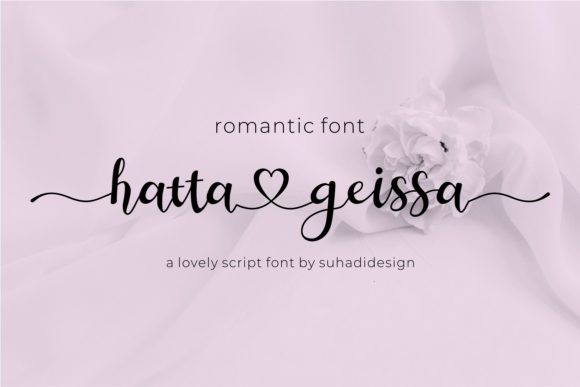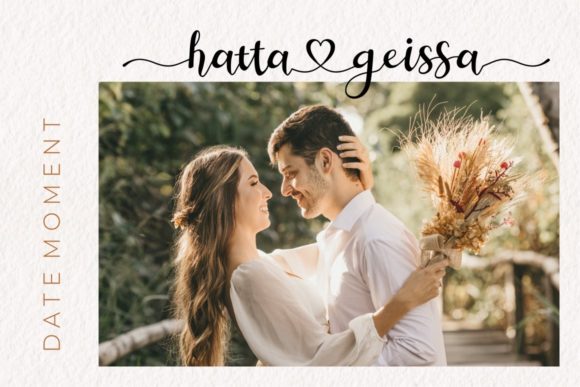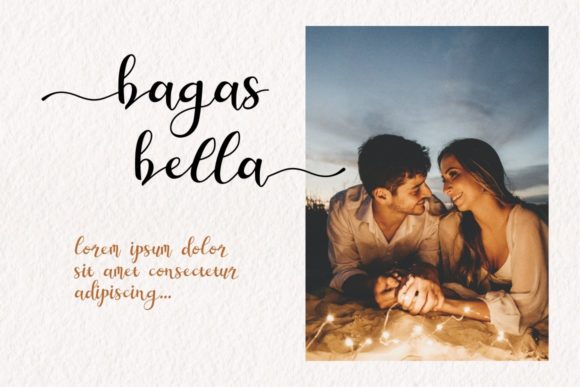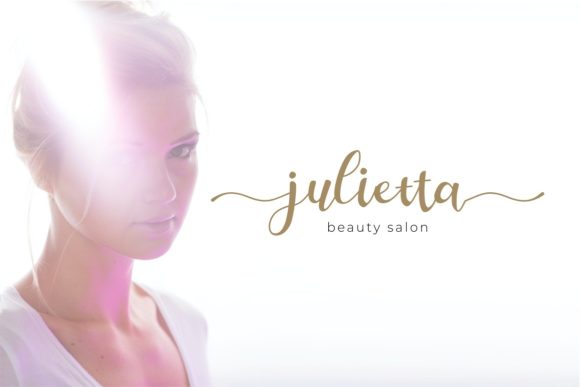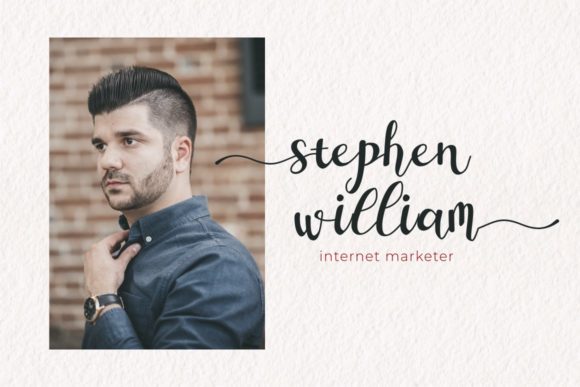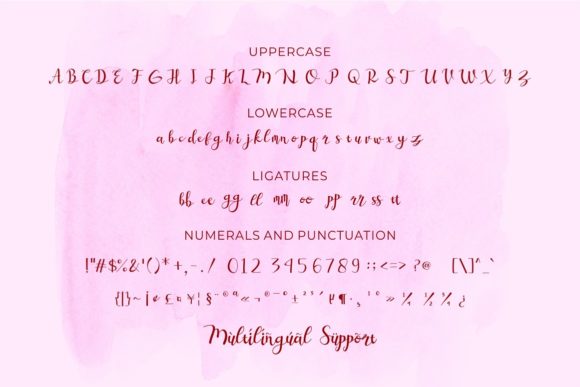
Hatta Geissa Font: Elevate Your Designs with Elegance and Sophistication
In the world of design, fonts play a crucial role in conveying the tone and personality of a brand or product. For designers and crafters seeking to add a touch of elegance and sophistication to their work, Hatta Geissa Font is an exceptional choice. This free-flowing script font is specifically designed for packaging products, invitation cards, flyers, mockups, event posters, and any other project that demands high-quality vibes.
Unleash Your Creativity with Hatta Geissa
Hatta Geissa Font boasts a beautiful and balanced character that seamlessly integrates with a wide range of design pools. Its flowing script style exudes a sense of luxury and refinement, making it perfect for designs that require a touch of sophistication. Whether you’re working on a branding project, creating invitations for a special occasion, or designing eye-catching posters, Hatta Geissa is sure to impress.
Key Features of Hatta Geissa Font
- Free-Flowing Script Style: Hatta Geissa’s script style is designed to flow effortlessly, creating a sense of continuity and harmony in your designs.
- PUA Encoded: This font is PUA (Private Use Area) encoded, which means you can easily access all glyphs and swashes, giving you greater flexibility and creative control.
- High-Quality Vibes: With Hatta Geissa, you can achieve high-quality designs that are sure to leave a lasting impression.
- Balanced Character: The font’s balanced character ensures that it fits well with a wide range of design pools, making it a versatile choice for various projects.
Hatta Geissa Font is an excellent choice for a variety of design projects, including:
- Packaging Products: Add a touch of elegance to your product packaging with Hatta Geissa’s sophisticated script style.
- Invitation Cards: Create beautiful and memorable invitations for special occasions, such as weddings, birthdays, and anniversaries.
- Flyers and Brochures: Use Hatta Geissa to create eye-catching flyers and brochures that showcase your products or services.
- Mockups and Event Posters: Elevate your mockups and event posters with Hatta Geissa’s high-quality vibes and elegant script style.
Why Choose Hatta Geissa Font?
With so many fonts available, why choose Hatta Geissa? Here are a few compelling reasons:
- Unique and Elegant Design: Hatta Geissa’s script style is both unique and elegant, making it an excellent choice for designers seeking to create distinctive designs.
- Highly Versatile: This font is suitable for a wide range of design projects, from packaging products to event posters.
- Easy to Use: With PUA encoding, accessing glyphs and swashes is effortless, giving you more time to focus on your design.
In conclusion, Hatta Geissa Font is an exceptional choice for designers and crafters seeking to add a touch of elegance and sophistication to their work. Its beautiful and balanced character, combined with its PUA encoding and high-quality vibes, make it an excellent choice for a wide range of design projects. Whether you’re working on packaging products, invitation cards, flyers, mockups, or event posters, Hatta Geissa is sure to elevate your designs to the next level.